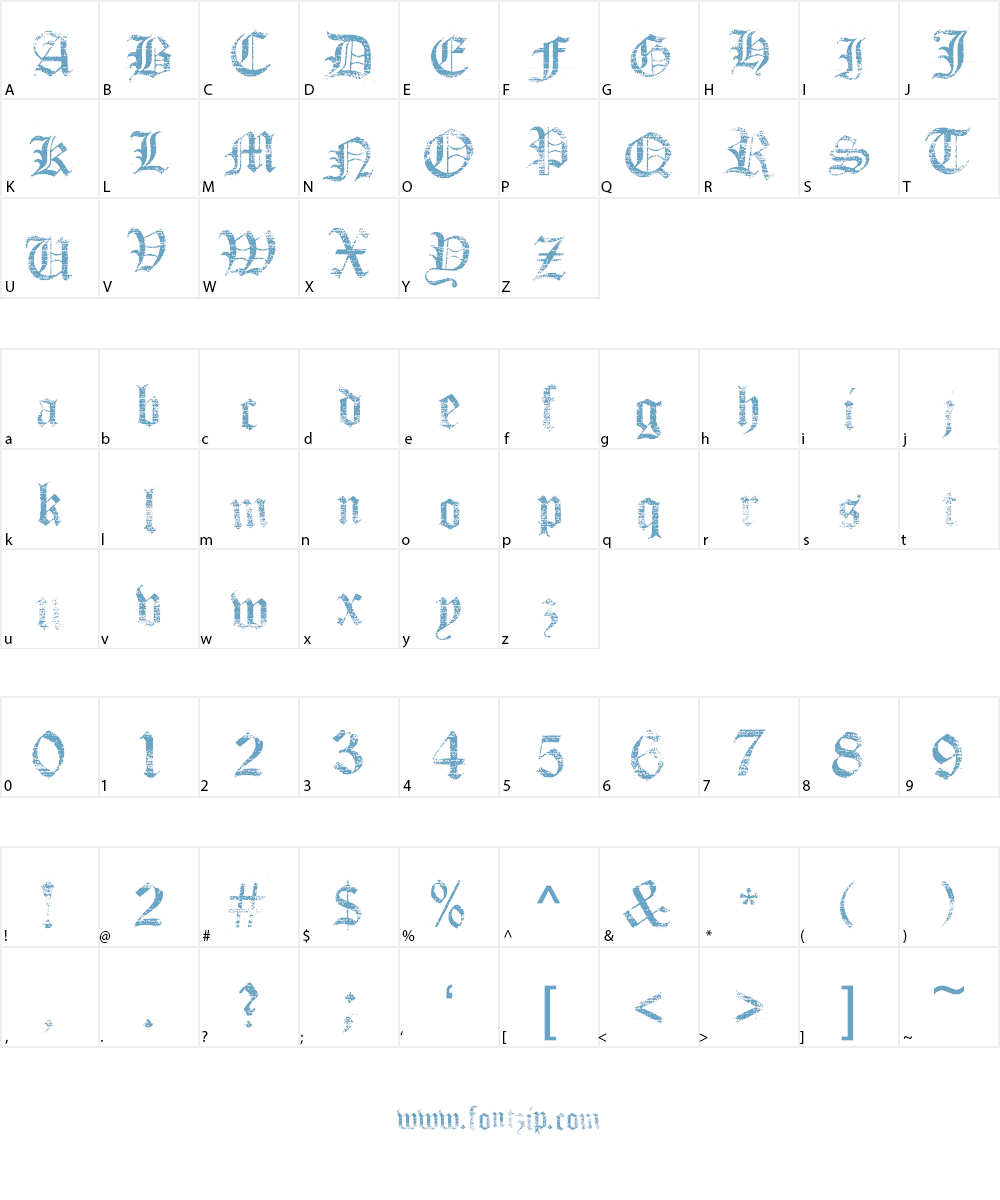
This one's kinda a cross between one of those disfunctional messy
old typewriter fonts, and one of those old English blackletter gothic
type thingy fonts. The little "not defined" thing is from the cover